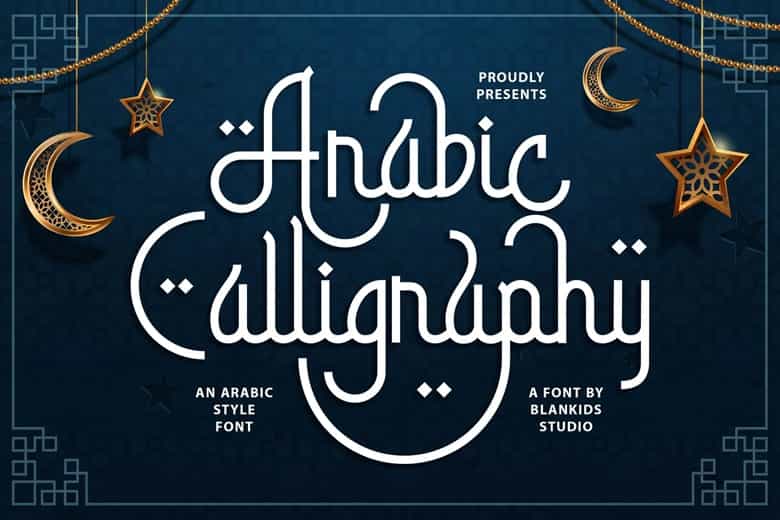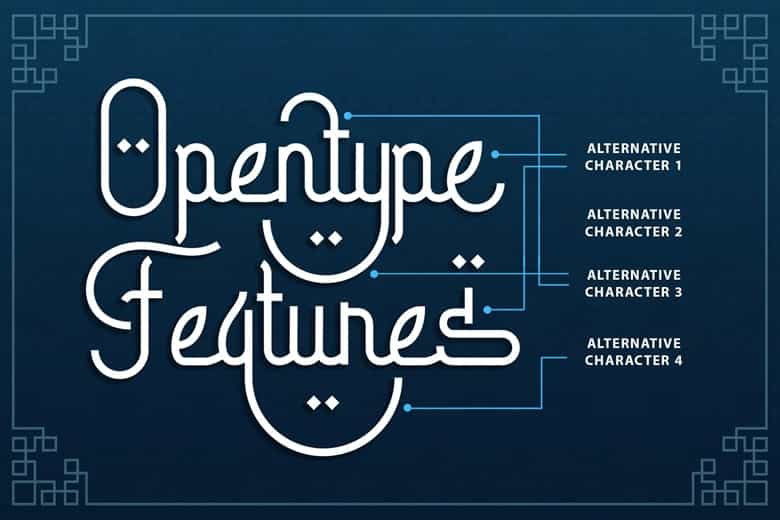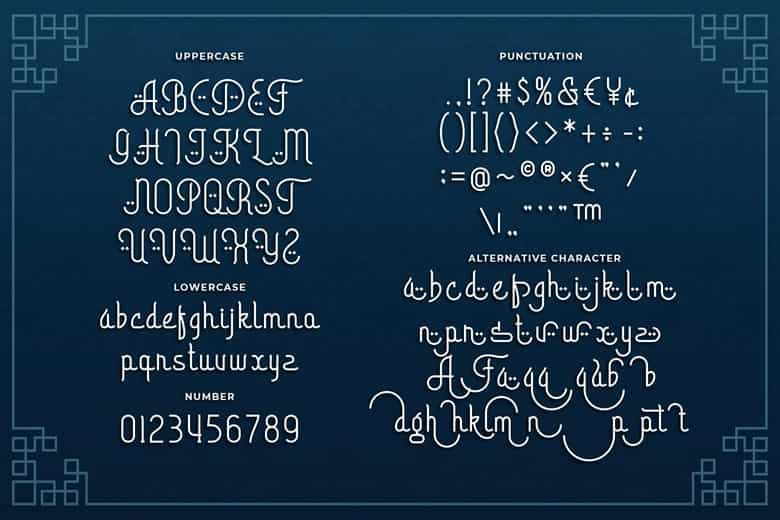
Arabic Calligraphy Font
Arabic Calligraphy is a carefully designed script font trying to imitate the fancy cursive nature of the Arabic Scripts. Such a font gives some vibe of the Arab world, which is appropriate in case we need a typeface with Islamic connotations, suitable for Muslim groups and related to Ramadan design.